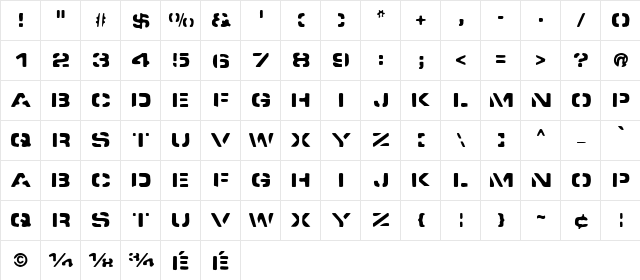
Spacedock Stencil Regular
Design Context for Spacedock Stencil Typeface
Spacedock Stencil borrows the utilitarian aesthetic of stencil lettering, with its characteristic cutaways and no-frills construction lending an industrial edge.
A strong choice for packaging that needs edge, warehouse aesthetics, and rough-and-ready visual identities.
Pro Tip: Use Spacedock Stencil at large sizes on packaging, posters, or apparel where the stencil cutaways read clearly. Avoid small sizes where those gaps become visual noise.